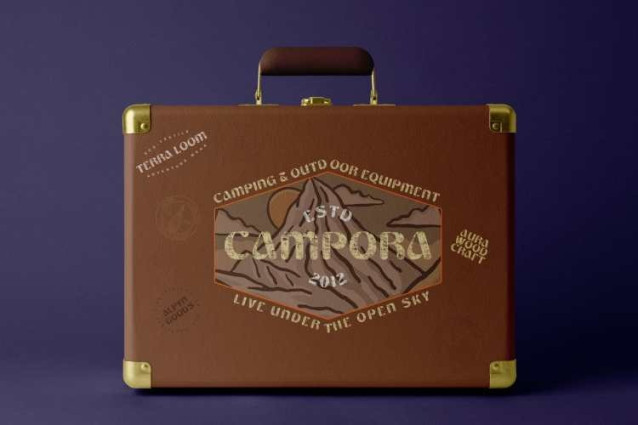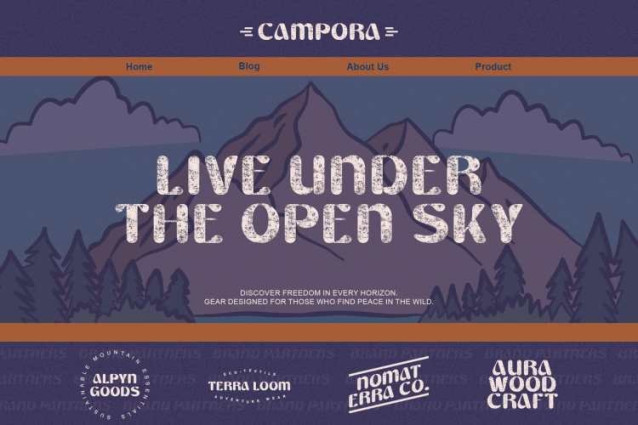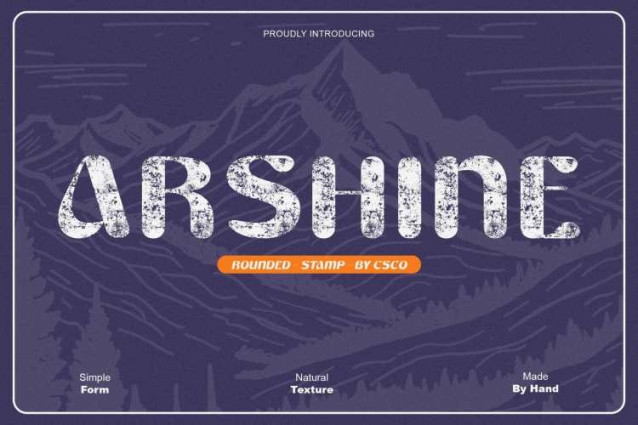
Arshine Rounded Stamp Font
Arshine Rounded Stamp Font is a bold sans serif display font that blends funky retro vibes with a smooth, rounded finish. Its playful yet confident shapes make every word pop with energy and style, ensuring your design captures attention from the very first glance.
Retro Character Meets Modern Expression
Inspired by mid-century design aesthetics, this font channels the fun and vibrancy of the retro era while maintaining a clean, contemporary edge. Its lively form is perfect for titles, branding, and posters that aim to balance nostalgia with modern creativity.
Stamp Texture for Authentic Vintage Feel
The stamp texture introduces a subtle worn effect, giving each letter a tactile and handcrafted charm. This vintage touch enhances the font’s personality, making it ideal for editorial layouts, packaging, or artistic projects that need warmth and authenticity.
Perfect for Bold, Expressive Design
This is more than just a display font’s a statement of style and individuality. Whether used in branding, headlines, or bold creative compositions, it brings a modern, lively, and expressive look that turns ordinary text into something truly unforgettable.